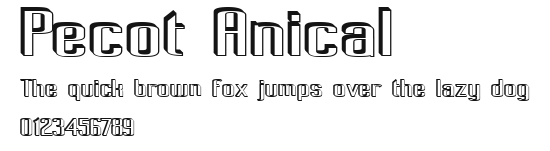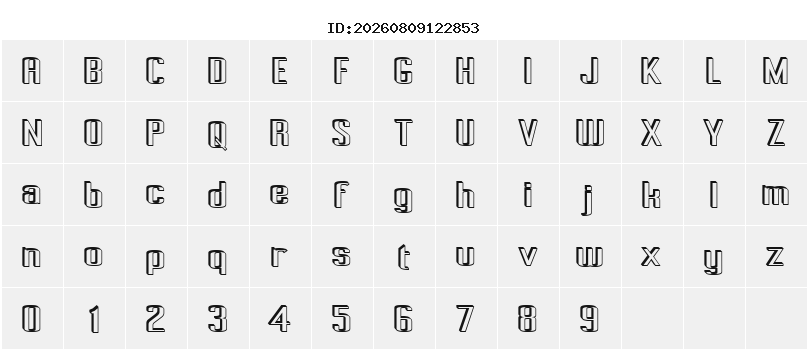
Pecot Anical Preview
• Font Name: Pecot Anical
• Full Font Name: Pecot Anical
About Pecot Anical.ttf
Pecot Anical.ttf is a modern, elegant sans-serif font designed for ultimate readability and visual harmony. Perfect for branding, headlines, web design, and print materials.